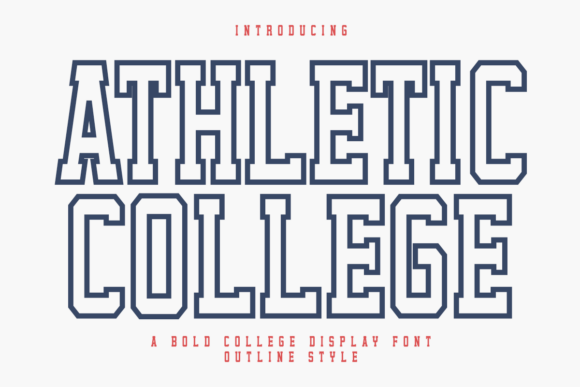
The Ultimate Font for Sports-Themed Designs: Athletic College Outline Font
I’ll never forget the time I was working on a design project for a local sports team. I had a clear vision of what I wanted to create, but I was struggling to find the perfect font to bring it all together. The design needed to be bold, powerful, and reminiscent of classic varsity style. That’s when I stumbled upon Athletic College Outline Font, and it completely transformed my design. In this article, I’ll share my experience with this amazing font, its features, and how you can use it to elevate your creative projects.
A Personal Review of Athletic College Outline Font
- ✅ Bold and powerful design: Athletic College Outline Font is perfect for creating high-impact designs that command attention.
- ✅ Classic varsity aesthetic: The font’s clean lines and sturdy structure evoke the timeless spirit of university sports and team spirit.
- ✅ Versatility: This font is not just limited to fashion designs; it’s also perfect for craft projects, vinyl cutting, and creating personalized gift tags.
- ✅ Excellent readability: The font’s classic varsity style ensures that it remains clear and readable on both digital screens and print materials.
While Athletic College Outline Font is an excellent choice for many design projects, there are a few things to keep in mind:
- 🤔 Limited font weights: Currently, the font comes in a single weight, which might limit its use in certain design projects that require multiple font weights.
- 🤔 Not suitable for body text: Due to its bold and outline design, Athletic College Outline Font is best used for headlines and titles, rather than body text.
The Designer Inspiration Behind Athletic College Outline Font
Athletic College Outline Font was inspired by the classic varsity style of university sports teams. The designer wanted to create a font that captured the timeless spirit of athletic teams and the energy of school events. The result is a bold and powerful font that’s perfect for creating high-impact designs.
Q: What is Athletic College Outline Font?
A: Athletic College Outline Font is a bold and powerful collegiate display font designed to bring a classic varsity aesthetic to your modern creative projects.
Q: Is Athletic College Outline Font suitable for digital screens?
A: Yes, Athletic College Outline Font is designed to be clear and readable on both digital screens and print materials, making it a versatile choice for various design projects.